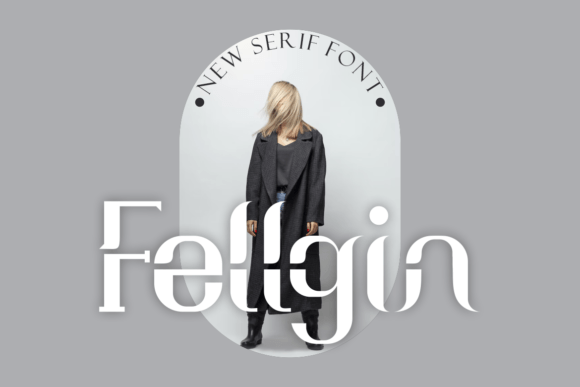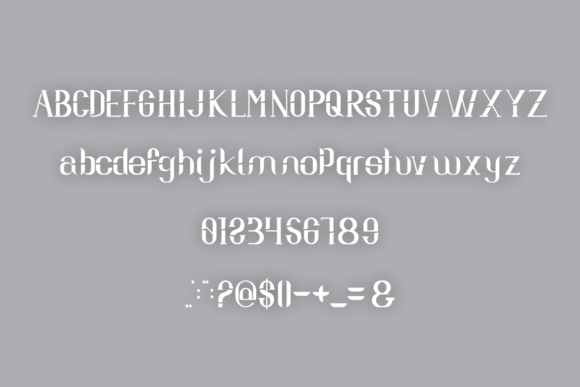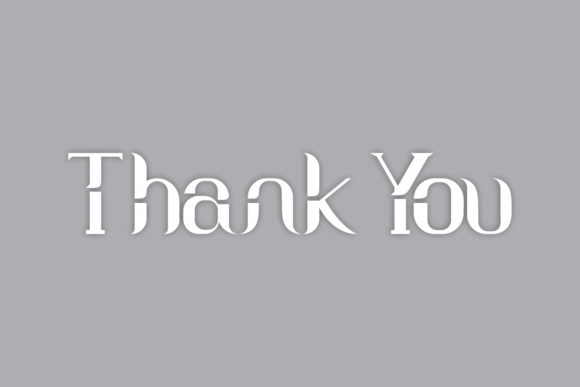
Fellgin Font: Elevate Your Designs with Elegance and Sophistication
In the world of typography, a font can make or break the visual appeal of a design. For designers and crafters seeking to add a touch of class and sophistication to their projects, Fellgin Font is an excellent choice. This unique serif font is designed to exude beauty, elegance, and modernity, making it perfect for a wide range of applications.
The Beauty of Fellgin Font
Fellgin Font boasts a distinctive serif design that sets it apart from other fonts. Its elegant and refined appearance makes it an ideal choice for projects that require a high level of sophistication. Whether you’re designing a logo, creating a wedding invitation, or crafting a typography quote, Fellgin Font is sure to impress.
One of the standout features of Fellgin Font is its versatility. This font can be used for a wide variety of projects, including:
- Signature and stationery designs
- Logo creation
- Wedding invitations and typography quotes
- Magazine or book covers
- Website headers
- Clothing and branding designs
- Packaging design
With Fellgin Font, you can add a touch of elegance and sophistication to any project, making it perfect for designers and crafters who want to create visually stunning designs.
Why Choose Fellgin Font?
So, why choose Fellgin Font over other fonts? Here are just a few reasons:
- Unique Design: Fellgin Font features a unique serif design that sets it apart from other fonts.
- Elegant and Sophisticated: This font exudes elegance and sophistication, making it perfect for high-end designs.
- Versatile: Fellgin Font can be used for a wide range of projects, from signature designs to website headers.
- Modern: Despite its classic serif design, Fellgin Font has a modern feel that will appeal to designers and crafters looking for a font that’s both timeless and contemporary.
Tips for Using Fellgin Font
To get the most out of Fellgin Font, here are a few tips:
- Use it as a headline font: Fellgin Font is perfect for headlines and titles, where its elegant and sophisticated design can really shine.
- Pair it with a sans-serif font: For body text, consider pairing Fellgin Font with a sans-serif font to create a nice contrast.
- Experiment with different colors: Fellgin Font looks great in a variety of colors, so don’t be afraid to experiment and find the perfect hue for your design.
In conclusion, Fellgin Font is a unique and elegant serif font that’s perfect for designers and crafters looking to add a touch of sophistication to their projects. With its versatile design and modern feel, this font is sure to become a go-to choice for a wide range of applications. Whether you’re creating a logo, designing a website header, or crafting a typography quote, Fellgin Font is an excellent choice.